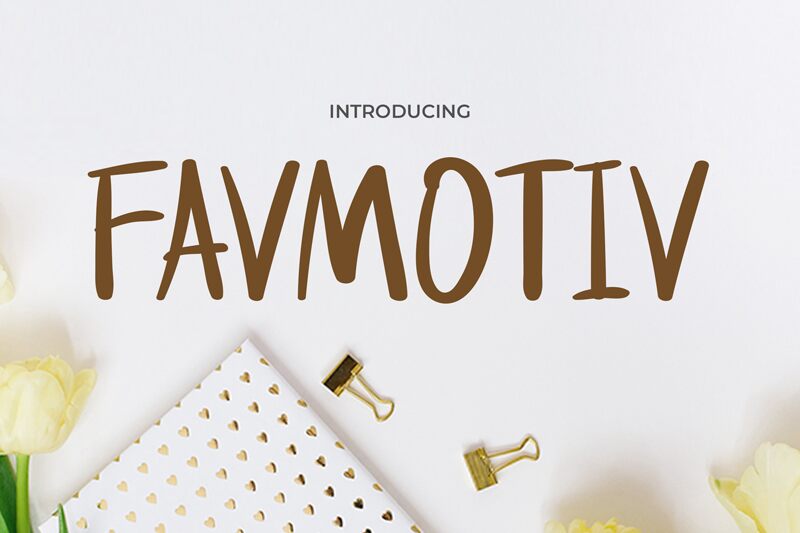
Favmotiv font by Pinisiart is a sleek, handwritten visual solution for your creative ideas. Characters are drawn carefully as if by hand – each character distinct in look but similar in style. The style is casual, informal, and modern, perfect for any friendly yet professional projects.
Consider this font for branding, headings, social media, magazines, and book cover designs. It would also look amazing on posters and packaging.